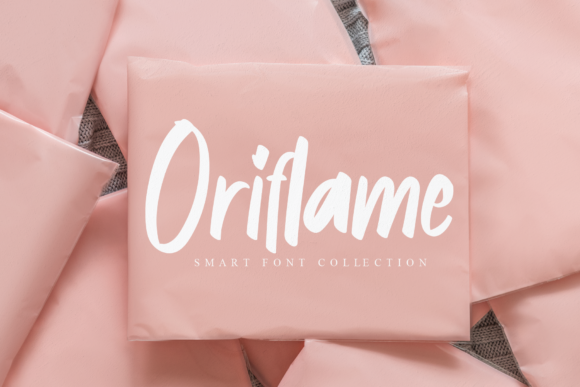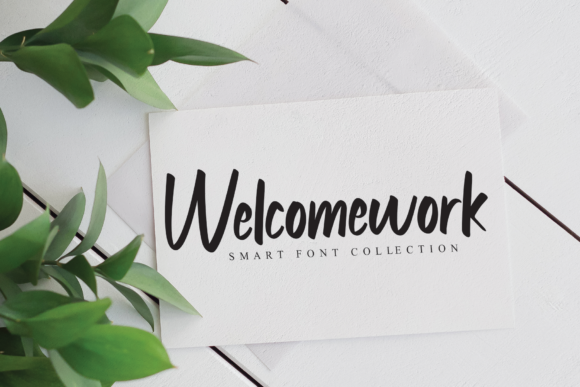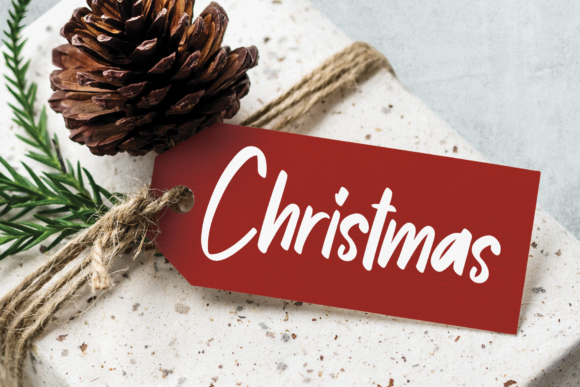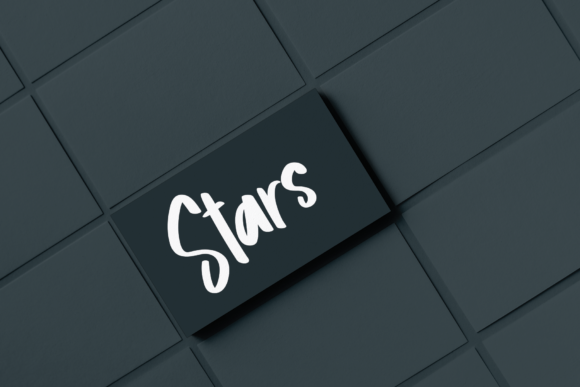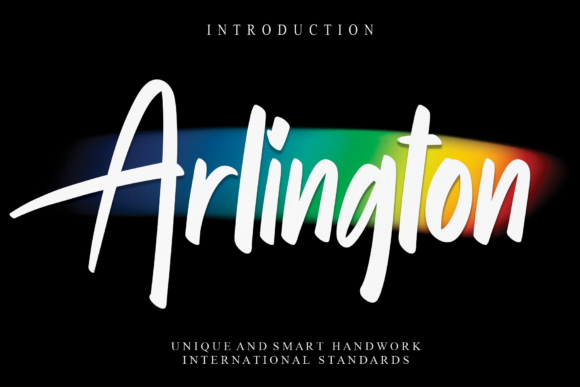
The Arlington Font: A Sweet and Flexible Handwritten Delight
I’ll never forget the design moment when I stumbled upon the Arlington font. I was working on a project for a client who wanted a warm and romantic feel, but I was struggling to find the right font to bring their vision to life. That’s when I discovered Arlington – a sweet, all-round, and flexible handwritten font that instantly captured the essence of what I was looking for.
With Arlington, I was able to turn my project ideas into real works of art. The font’s warm and jolly personality made it perfect for a variety of design applications, from invitations and greeting cards to branding and packaging. In this article, I’ll share my experience with Arlington, including what I love about it, its limitations, and how to get the most out of this beautiful font.
What I Love About Arlington ✨
- ✅ Warm and romantic feel that’s perfect for projects that require a personal touch
- ✅ Highly flexible and adaptable to different design styles and themes
- ✅ Beautifully crafted with attention to detail and a focus on readability
- ✅ Endless variations to keep your designs fresh and exciting
- ⚠️ Some users may find the font a bit too ornate or decorative for certain projects
- ⚠️ Limited availability of certain OpenType features in certain software applications
The Story Behind Arlington
Arlington was designed with the intention of creating a warm and romantic font that’s perfect for a variety of design applications. The designer wanted to create a font that’s both elegant and approachable, with a unique personality that sets it apart from other fonts. With its beautiful craftsmanship and attention to detail, Arlington is a font that’s sure to delight designers and non-designers alike.
Q: What is the personality of the Arlington font?
A: Arlington is a warm, romantic, and jolly font with a sweet and flexible personality.
Q: What design applications is Arlington best suited for?
A: Arlington is perfect for a variety of design applications, including invitations, greeting cards, branding, packaging, and more.